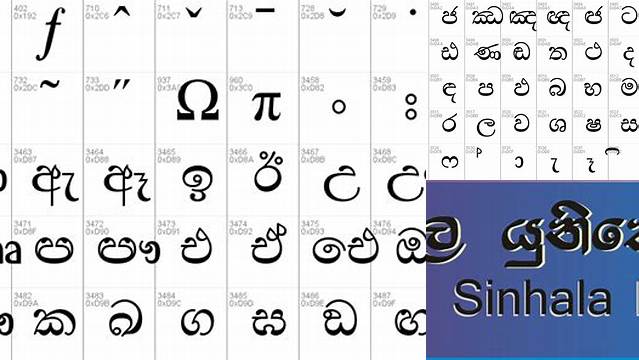
What is Iscola Potha Sinhala Font?
The Iscola Potha Sinhala font is a widely used typeface for Sinhala script. Its clean, legible design makes it a favorite for various applications, including educational materials, books, websites, and graphic design projects. The font is designed to be easily readable on screens and in print, ensuring that your content is accessible to a broad audience. Iscola Potha is known for its clarity and traditional aesthetic, which makes it a staple in the Sinhala-speaking community. Its balanced letterforms and consistent weight contribute to a smooth reading experience, whether you're working on a lengthy document or a short caption. Many designers and writers appreciate its versatility, as it can be used in both formal and informal contexts. Plus, its widespread availability means that you can easily integrate it into your projects without compatibility issues. If you are involved in any Sinhala-related content creation, having Iscola Potha in your font library is almost essential. Overall, the font's design prioritizes readability and aesthetic appeal, making it an excellent choice for diverse applications. In addition, the font supports a wide range of characters and ligatures, allowing for accurate and nuanced representation of the Sinhala language. This comprehensive support ensures that you can confidently use Iscola Potha for any Sinhala text, no matter how complex. Whether you are a student, teacher, designer, or writer, Iscola Potha is a valuable tool for communicating effectively in Sinhala.
Why Choose Iscola Potha?
There are several reasons why the Iscola Potha Sinhala font is a top choice for many users. First and foremost, its readability is unmatched. The font is designed to be clear and easy on the eyes, even for extended periods of reading. This is particularly important for educational materials, where comprehension is key. Secondly, Iscola Potha boasts broad compatibility. It works seamlessly across various operating systems and software applications, reducing the chances of formatting issues or display errors. This makes it a reliable choice for both personal and professional use. Additionally, its aesthetic appeal is undeniable. The font has a traditional yet modern look that makes it suitable for a wide range of design projects. Whether you're creating a formal document or a creative poster, Iscola Potha can enhance the visual impact of your work. Another significant advantage is its availability. Being a widely distributed font, finding and downloading Iscola Potha is usually straightforward. This ease of access saves you time and effort, allowing you to focus on your content rather than struggling with font acquisition. Furthermore, Iscola Potha supports a comprehensive set of Sinhala characters and ligatures. This ensures that you can accurately represent the nuances of the Sinhala language, which is crucial for maintaining the integrity of your text. Finally, its popularity within the Sinhala-speaking community means that it is often the default choice for many readers. Using Iscola Potha can help ensure that your content is well-received and easily understood by your target audience. For all these reasons, Iscola Potha remains a favorite among those working with Sinhala text.
Design Tips for Using Iscola Potha
Using the Iscola Potha Sinhala font effectively involves more than just installing and selecting it. Here are some design tips to help you make the most of this versatile typeface. Firstly, consider the context in which you're using the font. Iscola Potha's clean and legible design makes it suitable for a wide range of applications, but it's essential to tailor your design choices to the specific project. For formal documents, use Iscola Potha in a straightforward manner, with standard font sizes and styles. For more creative projects, experiment with different font weights, sizes, and colors to create visual interest. Secondly, pay attention to typography principles. Proper kerning, leading, and tracking can significantly improve the readability and aesthetic appeal of your text. Adjust the spacing between letters and lines to create a comfortable reading experience. Also, be mindful of contrast. Ensure that there is sufficient contrast between the text and background to make the text easy to read. Thirdly, consider pairing Iscola Potha with other fonts. While Iscola Potha works well on its own, combining it with a complementary Latin font can create a more balanced and visually appealing design. Choose a Latin font that complements Iscola Potha's clean lines and traditional aesthetic. Fourthly, use whitespace effectively. Whitespace, or negative space, is an essential design element that can help to create a sense of balance and clarity. Avoid overcrowding your design with too much text or graphics. Leave plenty of whitespace around the text to give it room to breathe. Finally, be consistent with your design choices. Use the same font sizes, styles, and colors throughout your project to create a cohesive and professional look. Consistency is key to creating a visually appealing and easy-to-read design. By following these design tips, you can leverage the full potential of Iscola Potha and create stunning Sinhala content.
The Iscola Potha Sinhala font is an excellent choice for anyone working with Sinhala script. Its readability, compatibility, and aesthetic appeal make it a valuable asset for various projects. By following the steps outlined in this guide, you can easily find, download, install, and use Iscola Potha to create beautiful and engaging Sinhala content. So go ahead, give it a try, and elevate your Sinhala typography today! Remember, using the right font can make all the difference in how your message is received. Happy designing, folks!